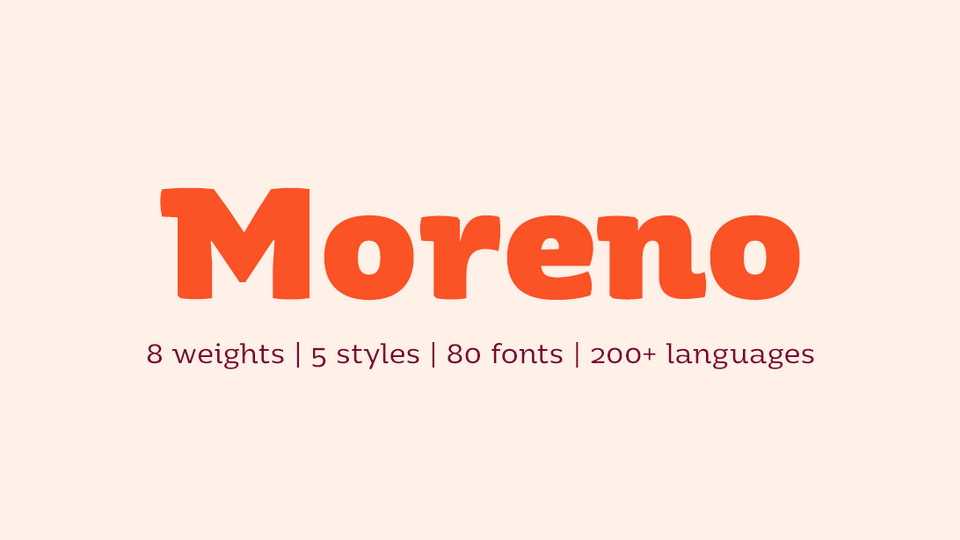
Download Moreno font family, a informal and playful semi serif typeface full of personality and flavor designed with the idea of a display typeface. Extra Thin weight is totally free!
Designer: Typedepot